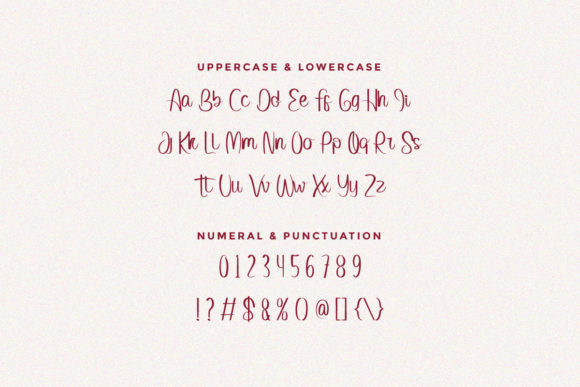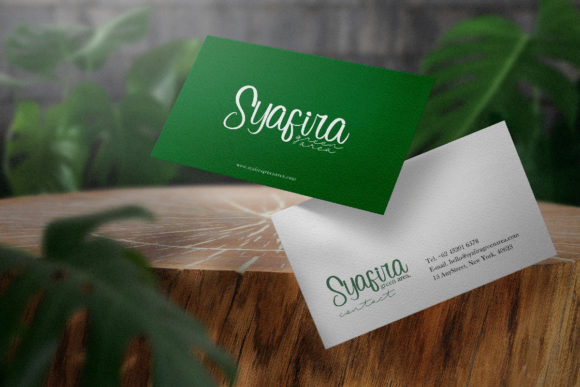
Somebody else Font
Somebody else Font is a free, unique, and cool font. This font is FREE to Download and suitable for designs such as t-shirts, sportswear, posters, logos, advertisements, clothing, and more.
Somebody else Font is a free, unique, and cool font. This font is FREE to Download and suitable for designs such as t-shirts, sportswear, posters, logos, advertisements, clothing, and more. Whatever the topic, this font will be a great asset to your font collection, as it has the potential to enhance any creation.